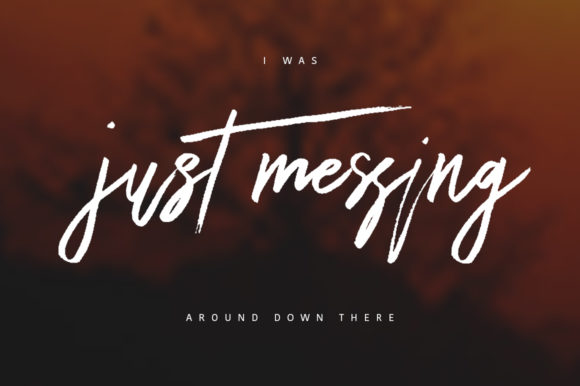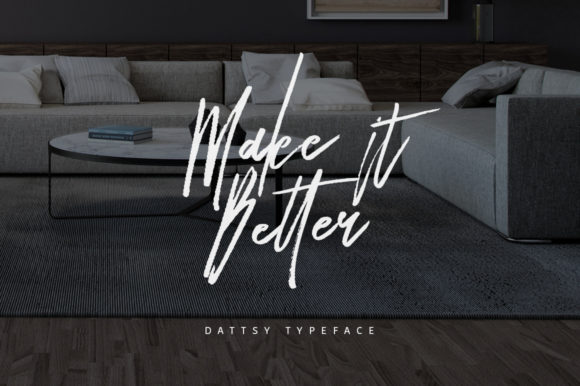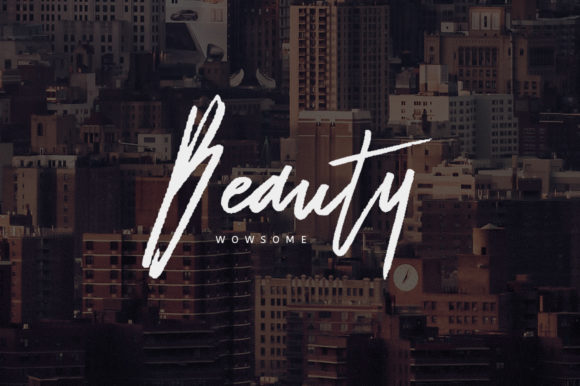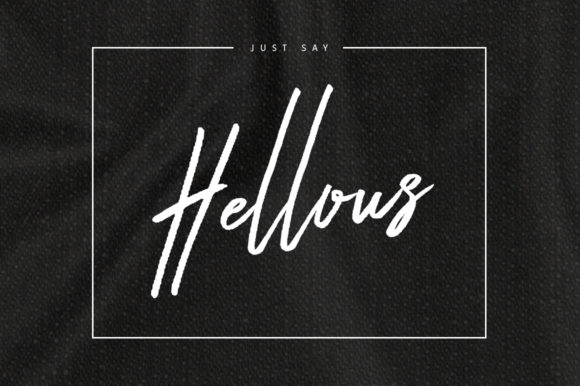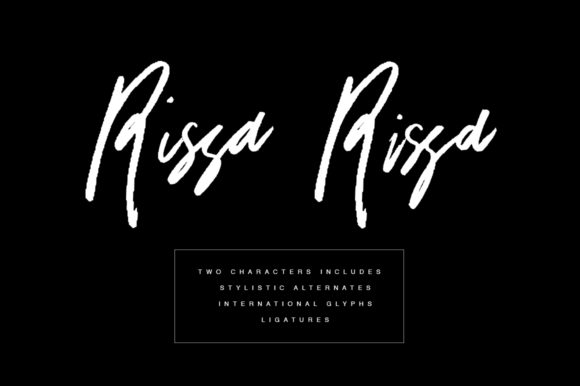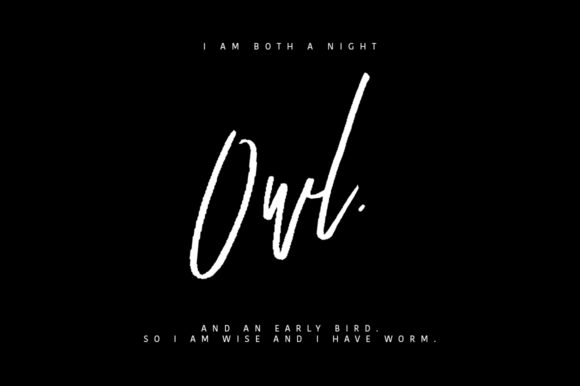
Dattsy Font
About Dattsy Font
Dattsy is a flowing and brushed handwritten font. It is the best choice for creating eye catching logos, branding and quotes. Every letter has a unique and beautiful touch, which will make your design come alive!